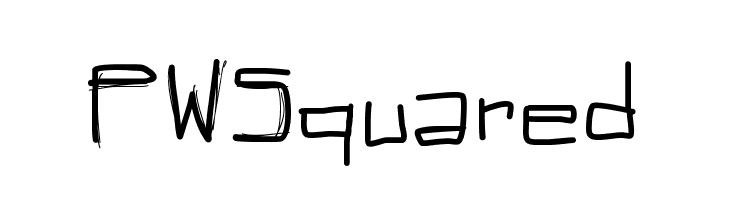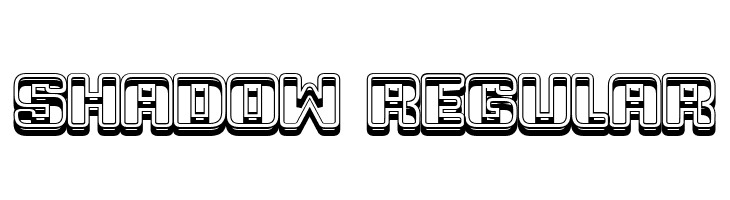
Handwritten cursive script font.
A bold, distressed font with a vintage, textured appearance.
A dynamic and playful script font with a handwritten feel.
A bold, 3D geometric font with a modern, futuristic style.
A playful, hand-drawn font with irregular, angular strokes and a primitive aesthetic.
A bold, textured font with a rugged, hand-carved appearance.
A bold, distressed font with a ransom note style and uneven character blocks.
A sleek, modern italic font with elongated, narrow characters and low contrast.
تحظى Only Time Would Tell Regular, Barsdeya, Freakland, Kandaline and Leprosy 3D Regular بشعبية لخطوطها النظيفة وتطبيقاتها الواسعة — من الهوية البصرية إلى الصفحات المقصودة والملصقات.